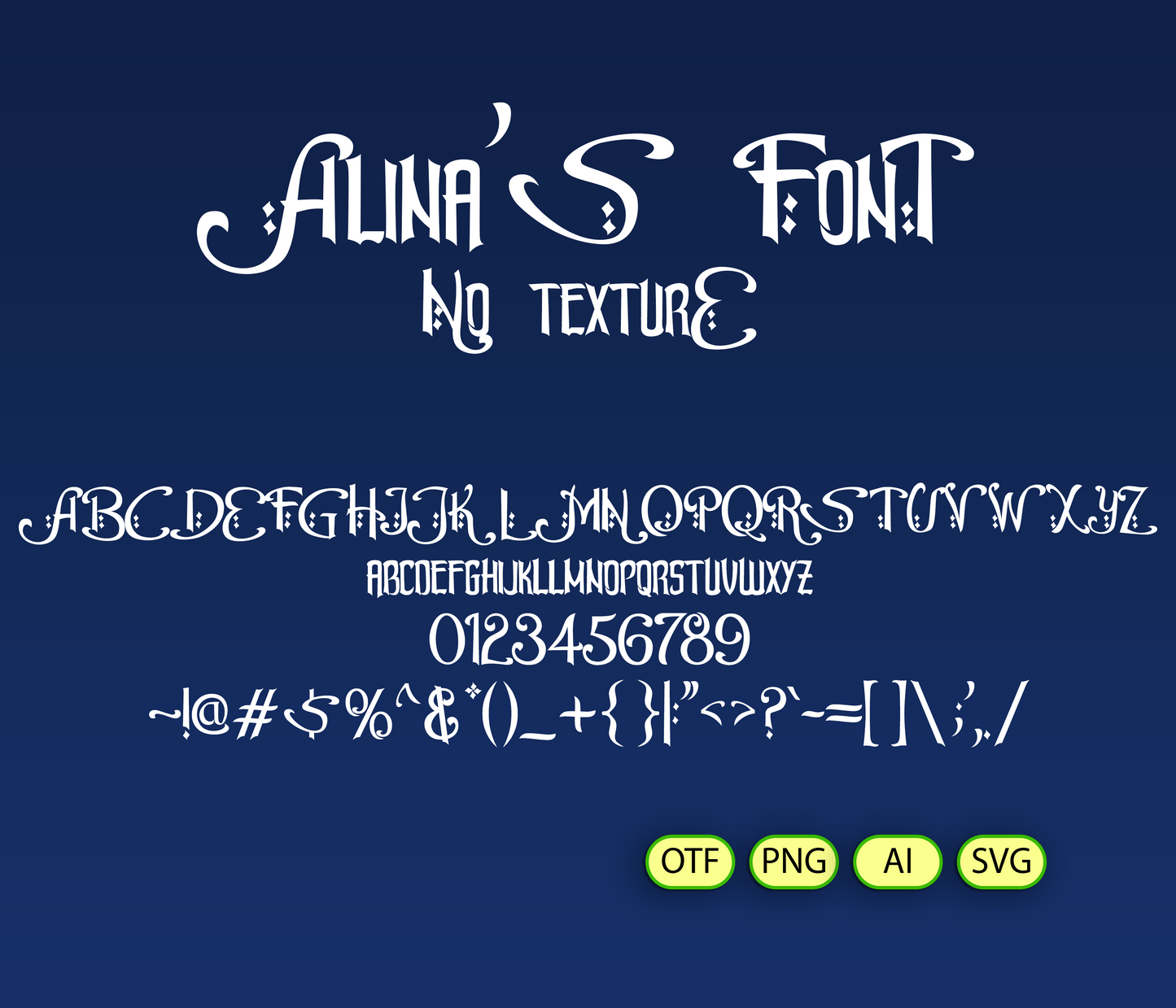
Mystical Academy Font
Step into the mystical realm with our enchanting Mystical Academy font, designed to capture the essence of magical academies and wizarding adventures. Perfect for creators, event planners, and designers seeking to infuse their projects with arcane charm. Unlock the secrets of ancient magic with our enchanted font, designed to evoke the wonder of spell-casting schools and arcane studies.
Featuring elegant flourishes and enchanted letterforms that capture magical essence. Perfect for:
- Magical Events: Create bewitching invitations and decorations for themed gatherings
- Enchanted Merchandise: Design mystical apparel and accessories
- Arcane Media: Add supernatural flair to digital content
- Magical Literature: Enhance grimoires and spell journals
- Craft Projects: Perfect for magical-themed DIY ventures